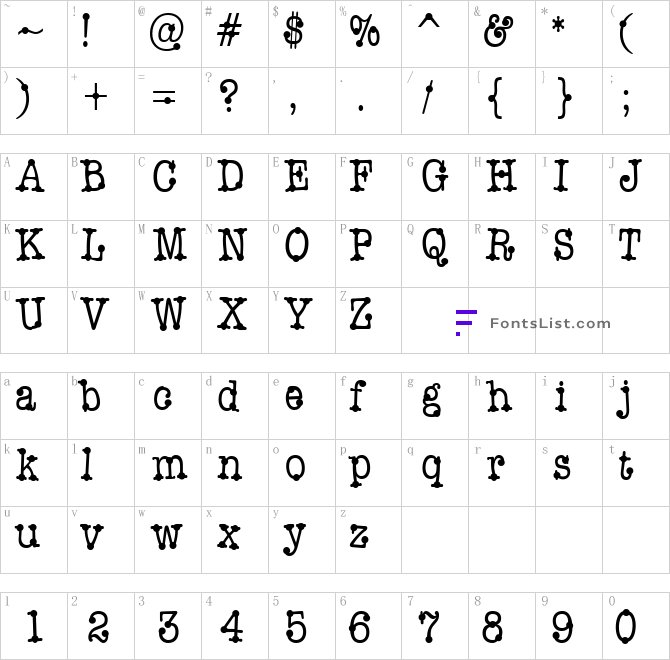
- Font Name:Accent Dot Writer
Accent-Dot-Writer.ttf is a very beautiful artistic font, Accent-Dot-Writer.ttf is widely used in the design and printing of various books and pictures,Accent-Dot-Writer.ttf has a strong visual impact,Accent-Dot-Writer.ttf is a commonly used font in newspapers, magazines and books, and is used in posters, e-commerce Poster design, store design, logo design, font design and other fields.Accent-Dot-Writer.